Fonts play an important role in every design. Cursive and script fonts are nothing new but are a less common choice for many designers. Therefore, you can use this opportunity in your project so that you can give the impression of originality to your design.
But keep in mind the following aspects before choosing a cursive font for your design:
- Natural flow of letters is the main characteristic of a good handwritten font that makes it stand out from the rest. If the characters intertwine with each other in a way that flows creatively, then the font you’ve chosen is absolutely stunning.
- As these are handcrafted font designs, each has its own unique style of lettering design. And each character must be different from the others. Do not let you choose a font that has the same design as other fonts.
- You will find handwritten fonts with vintage, girly, modern, calligraphic, and many design styles. People are starting to create fonts based on customizable themes, therefore Choose a font theme that suits your project.
- Another important thing to remember when looking for handwritten fonts is to find fonts that can be paired, whether it’s between large headings, subtitles or paragraphs. You have to be really careful in combining the fonts that you will use so that they don’t look weird.
- Find fonts that anyone can read effortlessly. Sometimes cursive fonts are a little difficult for readers because of their style. Therefore use cursive fonts properly in your designs.
We created this article for you so that you can see some of the most beautiful and modern lists of cursive fonts that you can use for your various types of designs.
1. Redpaws
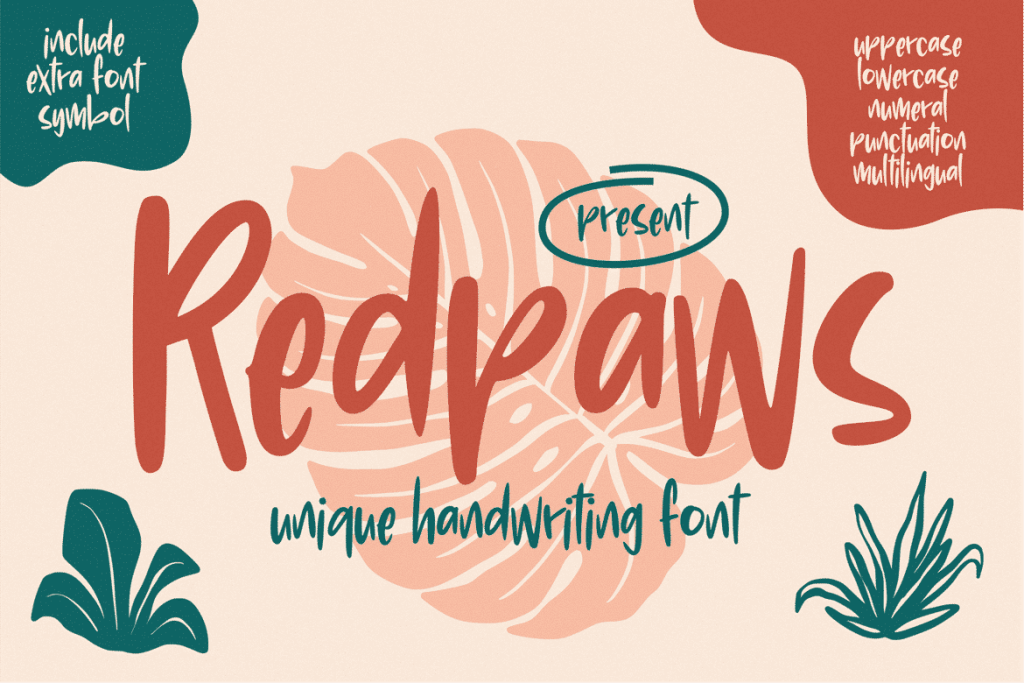
2. Krispylottus
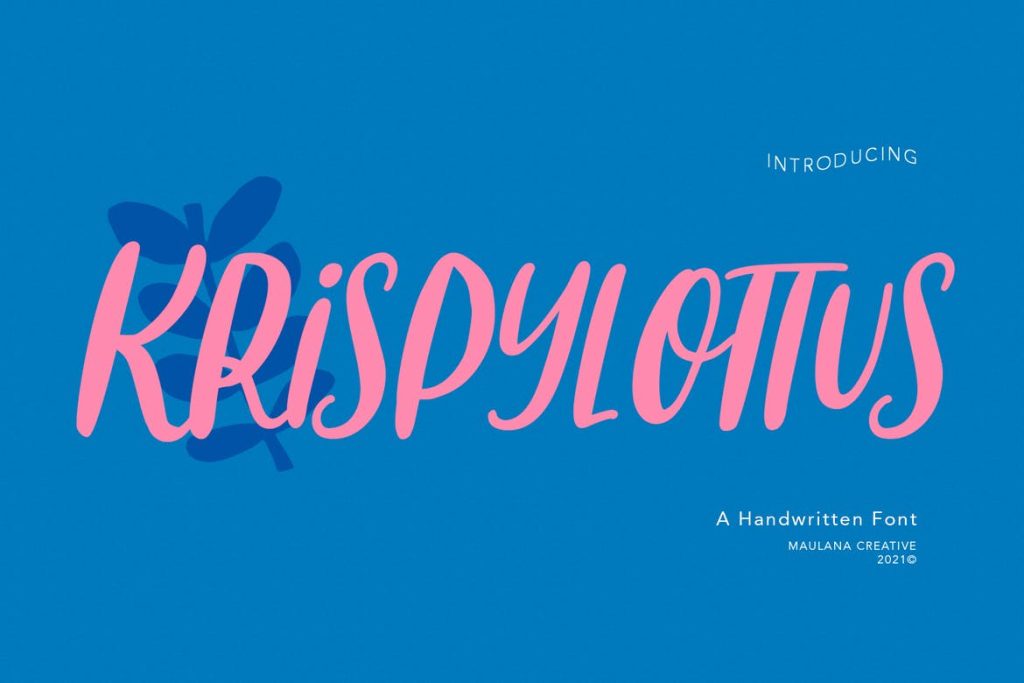
3. Southeast Better
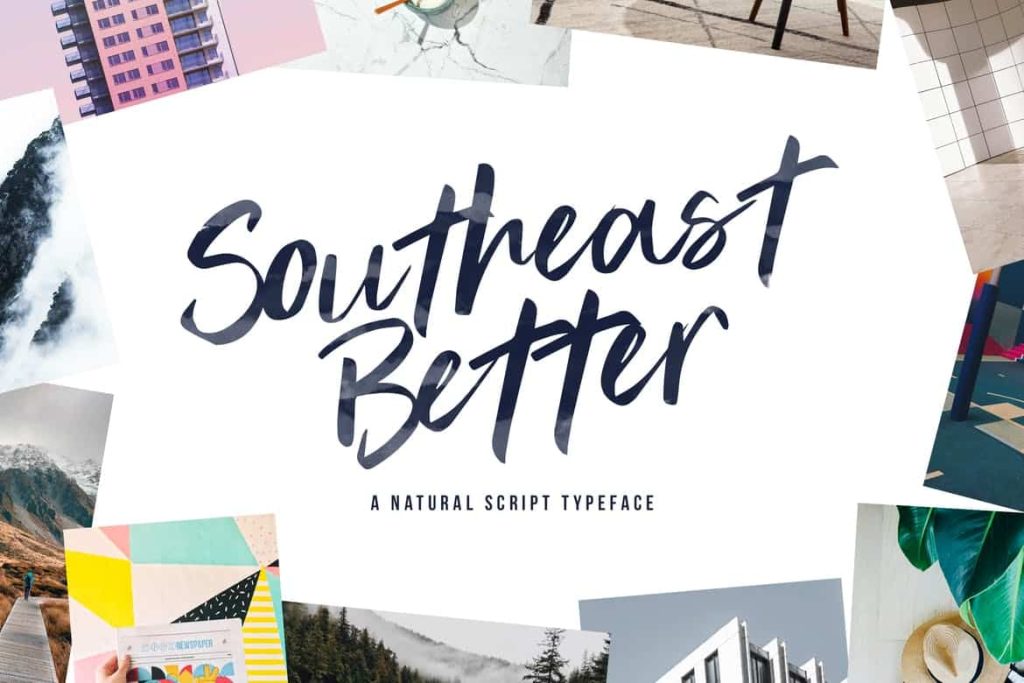
4. Tokyo Street
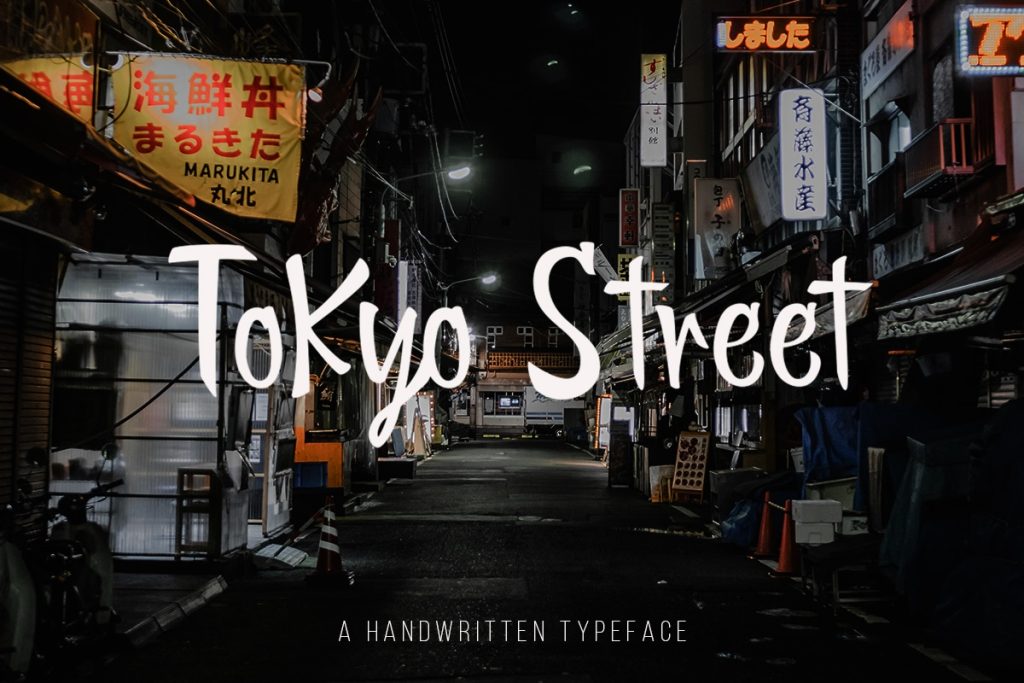
5. Sattersoon
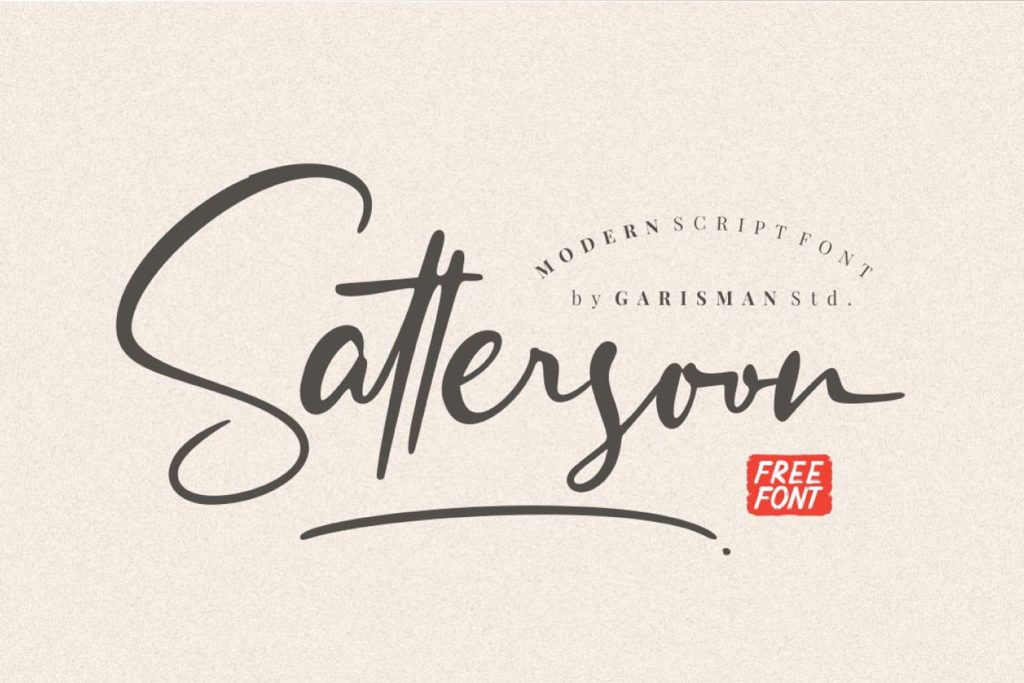
6. Nathan
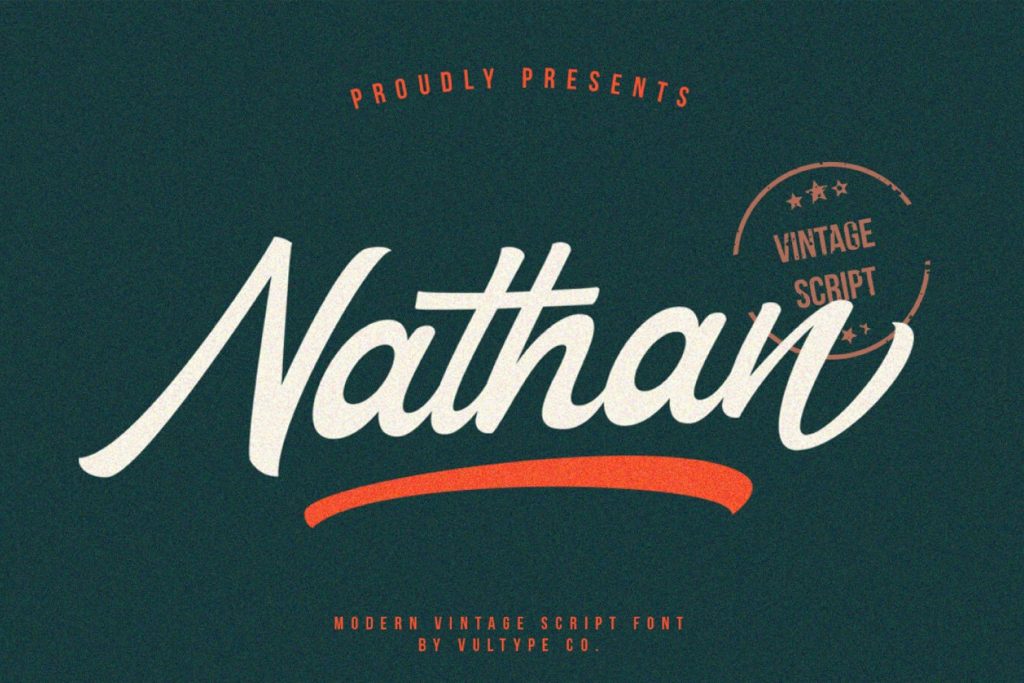
7. Northville
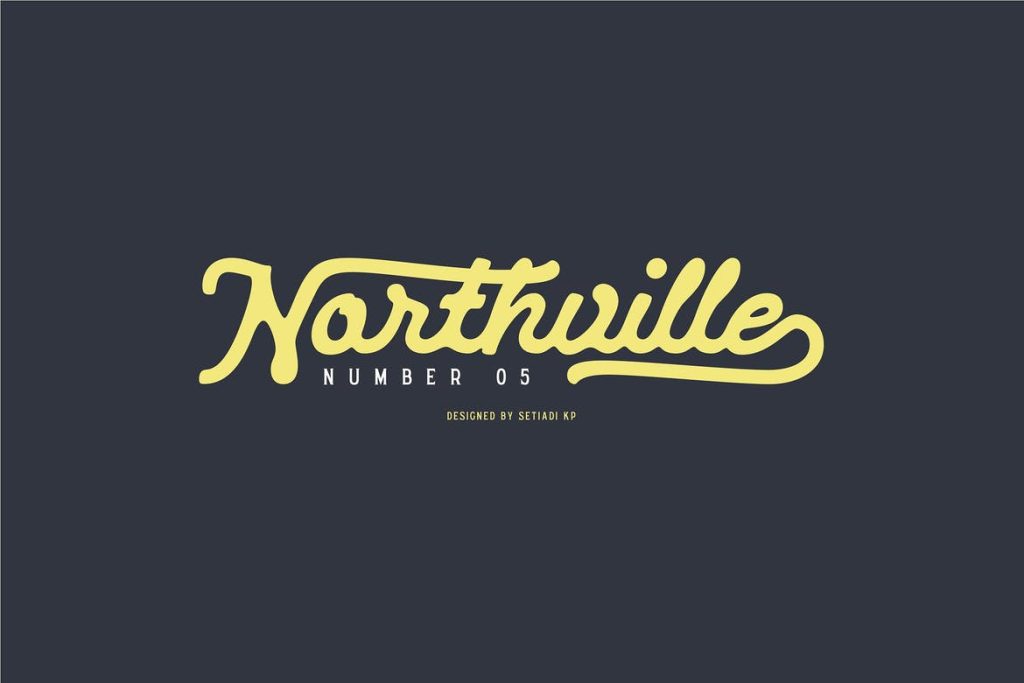
8. Lovestrong
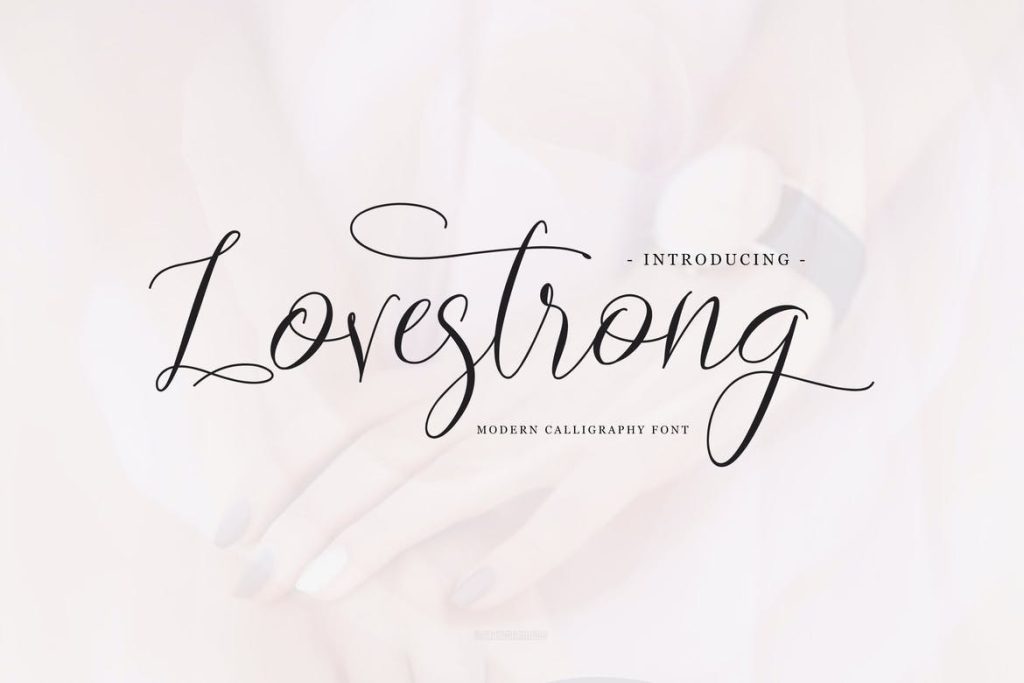
9. Steelmond
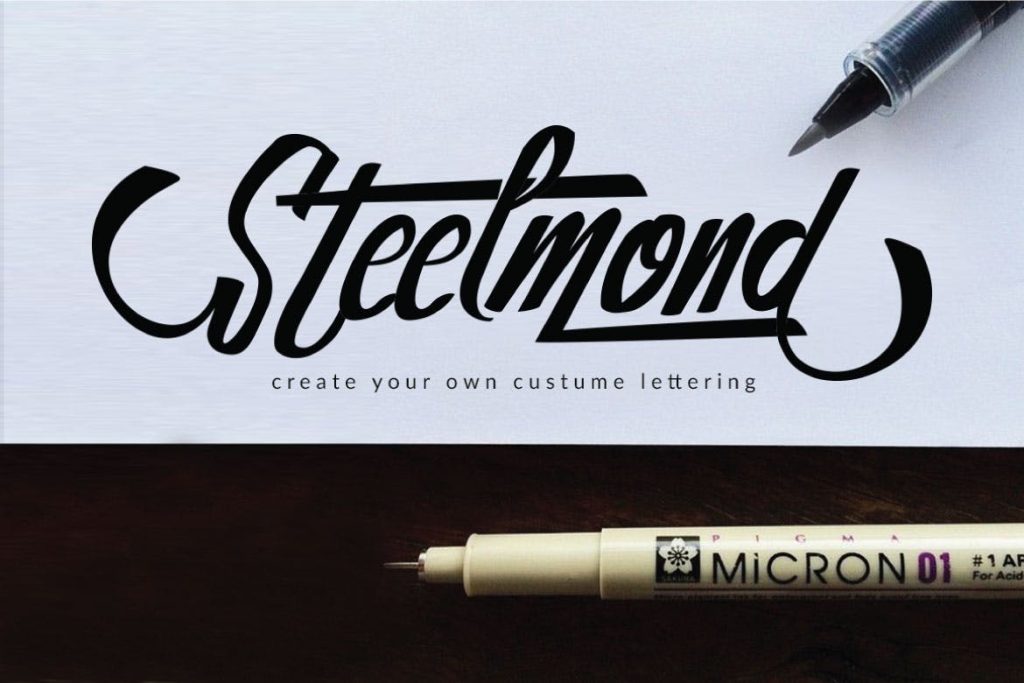
10. Geraldine
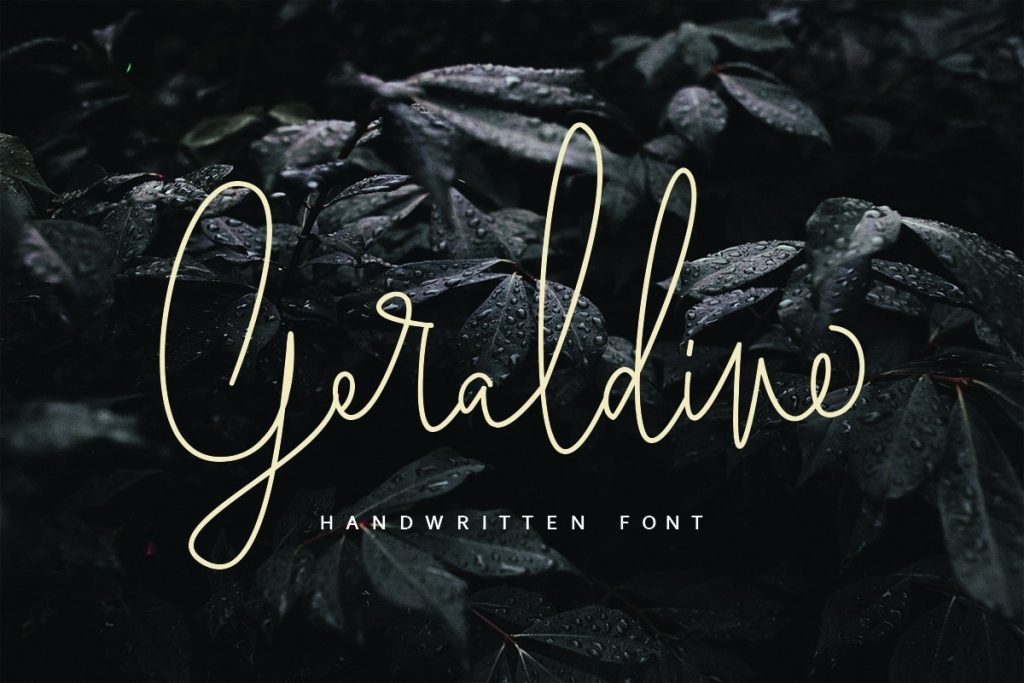
11. Shadowy
12. Rattem Hullax
13. Red Bright
14. Ematodas
15. Bakerie
16. Leviafan
17. Tristan
18. Rogan Winters
19. Polkawars
20. Oston